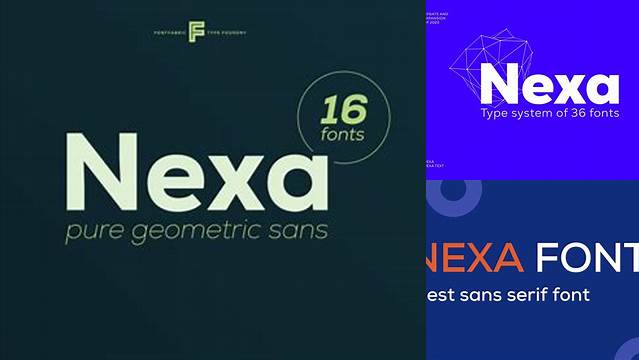
Nexa Font: What Makes It So Special?
Nexa font is a geometric sans-serif typeface designed by Fontfabric. It's known for its clean lines, balanced proportions, and overall modern aesthetic. This makes it incredibly versatile for a wide range of applications, from branding and logos to websites and print materials. Seriously, this font can do it all! One of the standout features of the Nexa font family is its extensive range of weights and styles. This allows designers to create visual hierarchy and add depth to their designs, ensuring that every project feels polished and professional. The font's legibility is also a major plus. Whether you're working on a large-format poster or a small mobile screen, Nexa remains easy to read and visually appealing.
Nexa Font Alternatives: Similar Styles for Free
If you're on a tight budget or just want to explore similar styles, there are some great Nexa font alternatives available for free. These fonts capture the essence of Nexa's modern, geometric design without costing you a dime. When choosing an alternative, consider the specific needs of your project. Look for fonts that offer a similar range of weights and styles, and always test them in your designs to ensure they look just right. There are many great options out there that can provide a similar aesthetic without breaking the bank.
Nexa Bold Font: Making a Statement
The Nexa Bold font is a powerhouse when you need to make a strong visual impact. Its heavier weight commands attention and is perfect for headlines, call-to-actions, and branding elements that need to stand out. Using Nexa Bold strategically can help guide the viewer's eye and create a clear visual hierarchy in your designs. It's a versatile choice that works well in both print and digital applications.
Nexa Light Font: Elegance and Subtlety
On the other end of the spectrum, the Nexa Light font offers a touch of elegance and subtlety. Its thin strokes create a refined and sophisticated look, making it ideal for body text, captions, and other supporting elements. Nexa Light is particularly well-suited for projects that require a clean and minimalist aesthetic. Its readability is excellent, even at smaller sizes, making it a great choice for websites and mobile apps.
Nexa Rust Font: A Textured Twist
For a more unique and playful look, consider the Nexa Rust font. This textured version of Nexa adds a vintage-inspired feel to your designs. Its distressed edges and rough textures create a sense of authenticity and character. Nexa Rust is perfect for projects that need a touch of personality, such as posters, packaging, and apparel designs. It's a great way to add visual interest and stand out from the crowd.
Nexa Slab Font: Strong and Stable
The Nexa Slab font is a slab-serif version of Nexa, offering a more robust and grounded appearance. Its strong serifs provide a sense of stability and authority, making it ideal for headlines, branding, and editorial design. Nexa Slab is a versatile choice that works well in both print and digital applications. It's a great way to add a touch of seriousness and professionalism to your designs.
Nexa Black Font: Maximum Impact
When you need maximum impact, the Nexa Black font is the way to go. Its super-heavy weight commands attention and makes a bold statement. Nexa Black is perfect for headlines, posters, and other display applications where you want to grab the viewer's attention. It's a powerful tool for creating visually striking designs.
Designing Logos with Nexa Font
Nexa font is an excellent choice for logo design due to its clean lines, versatility, and modern aesthetic. Its balanced proportions and legibility make it easy to create logos that are both visually appealing and memorable. When designing a logo with Nexa, consider the overall brand identity and choose a weight and style that reflects the brand's personality. Nexa Bold is often used for strong and impactful logos, while Nexa Light can be used for more elegant and sophisticated designs.